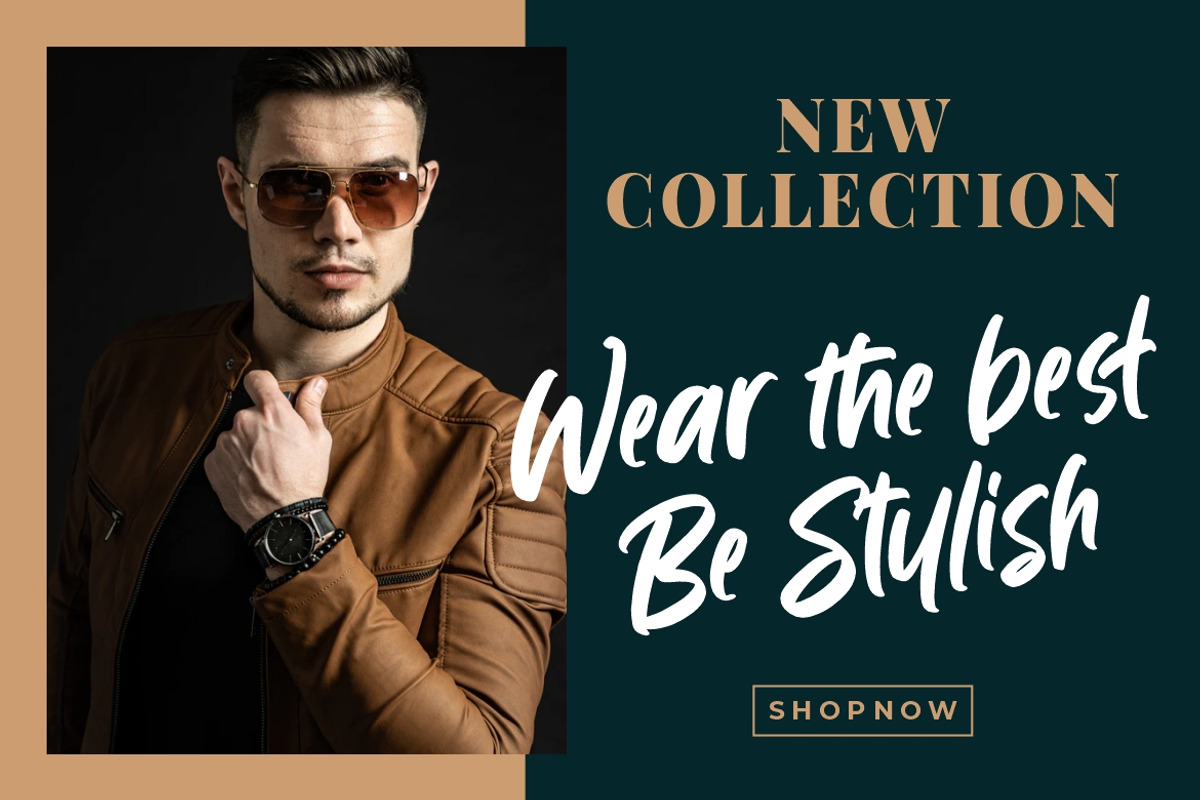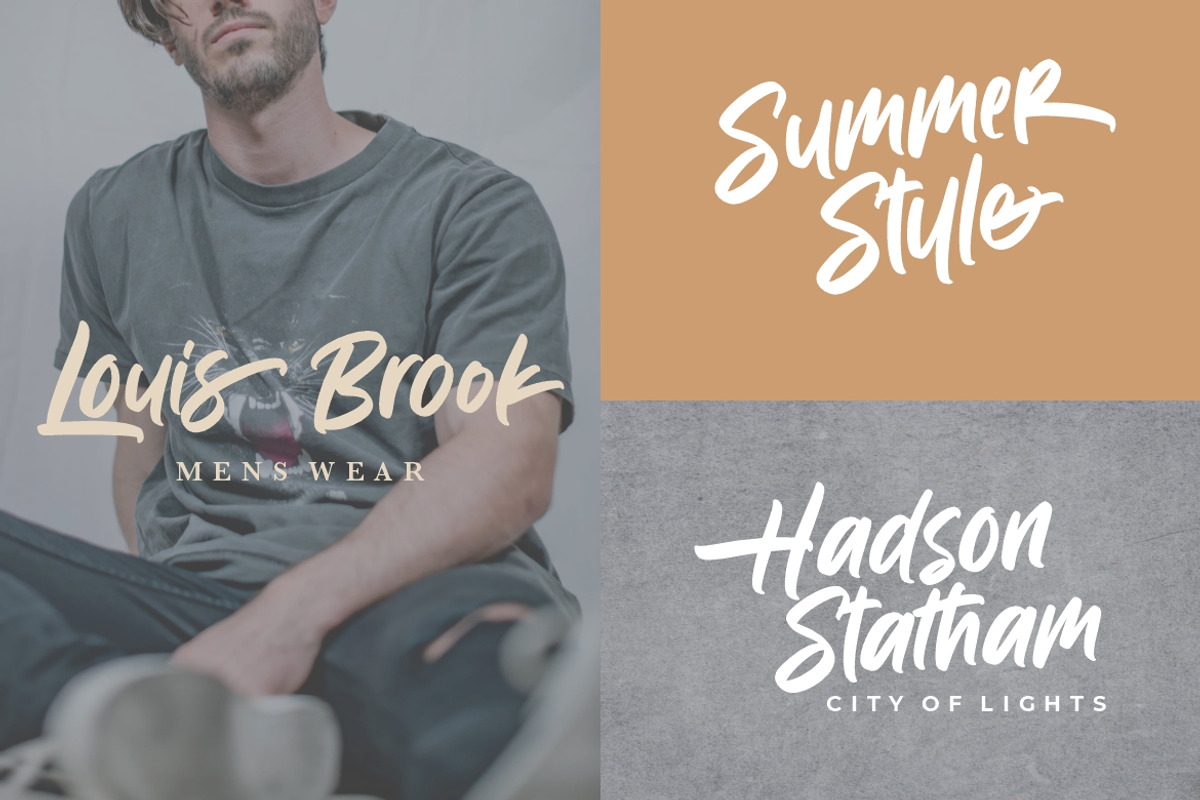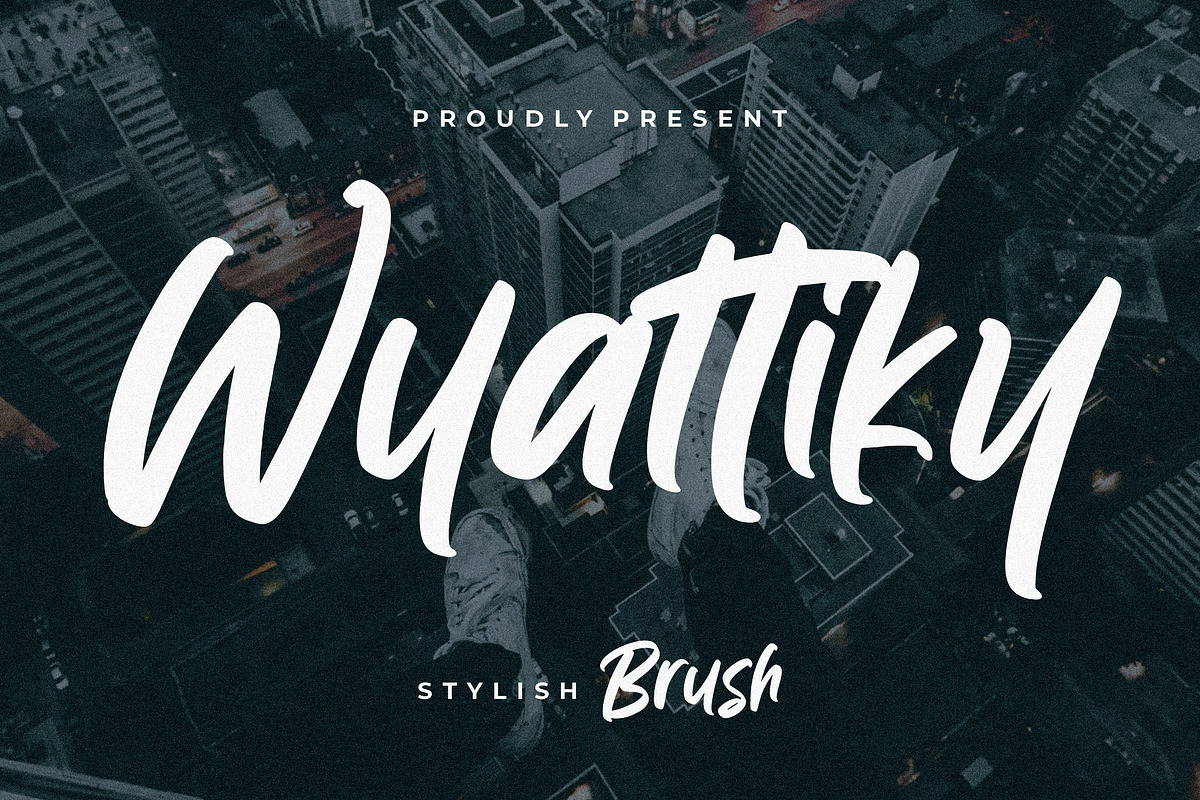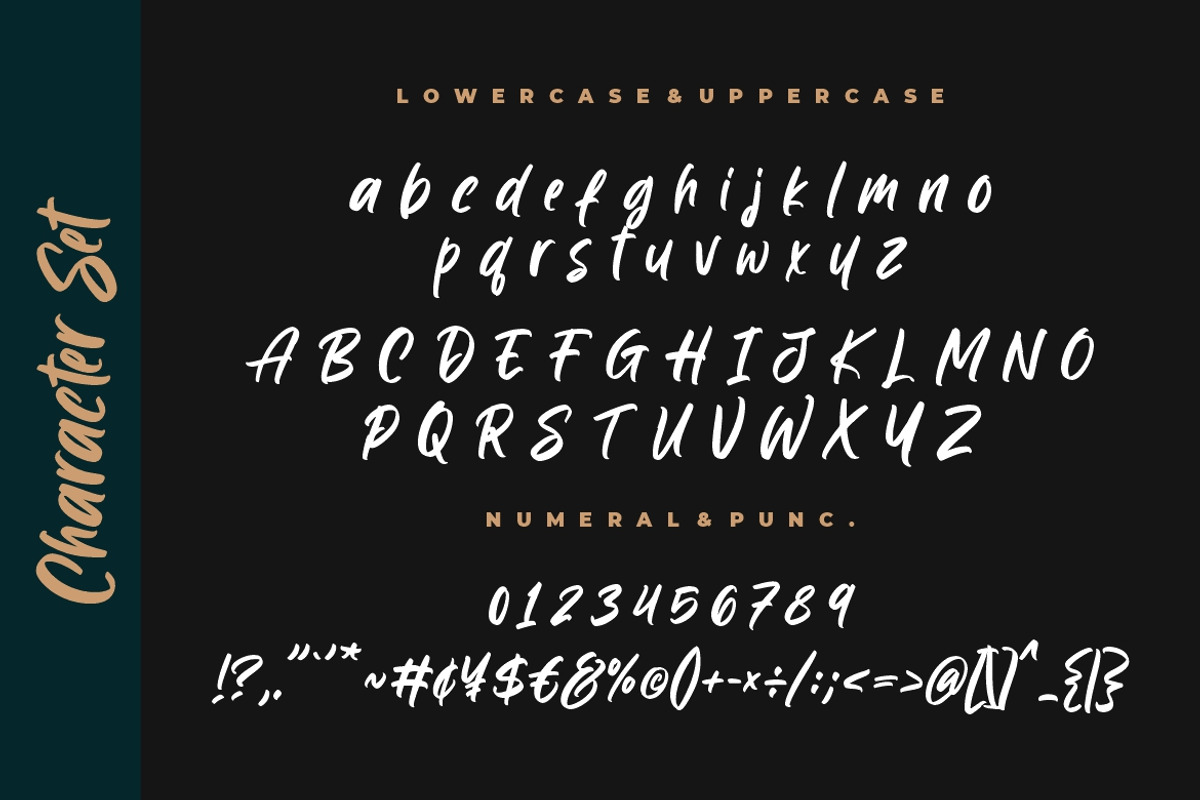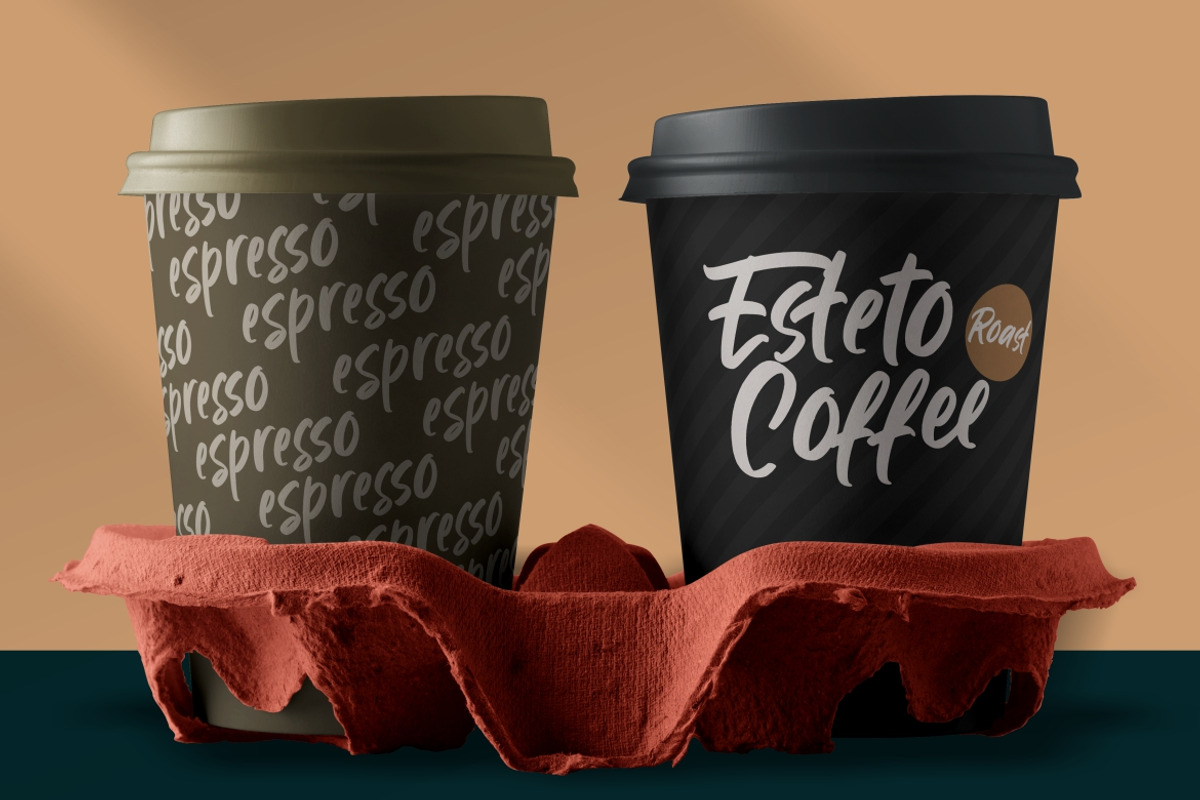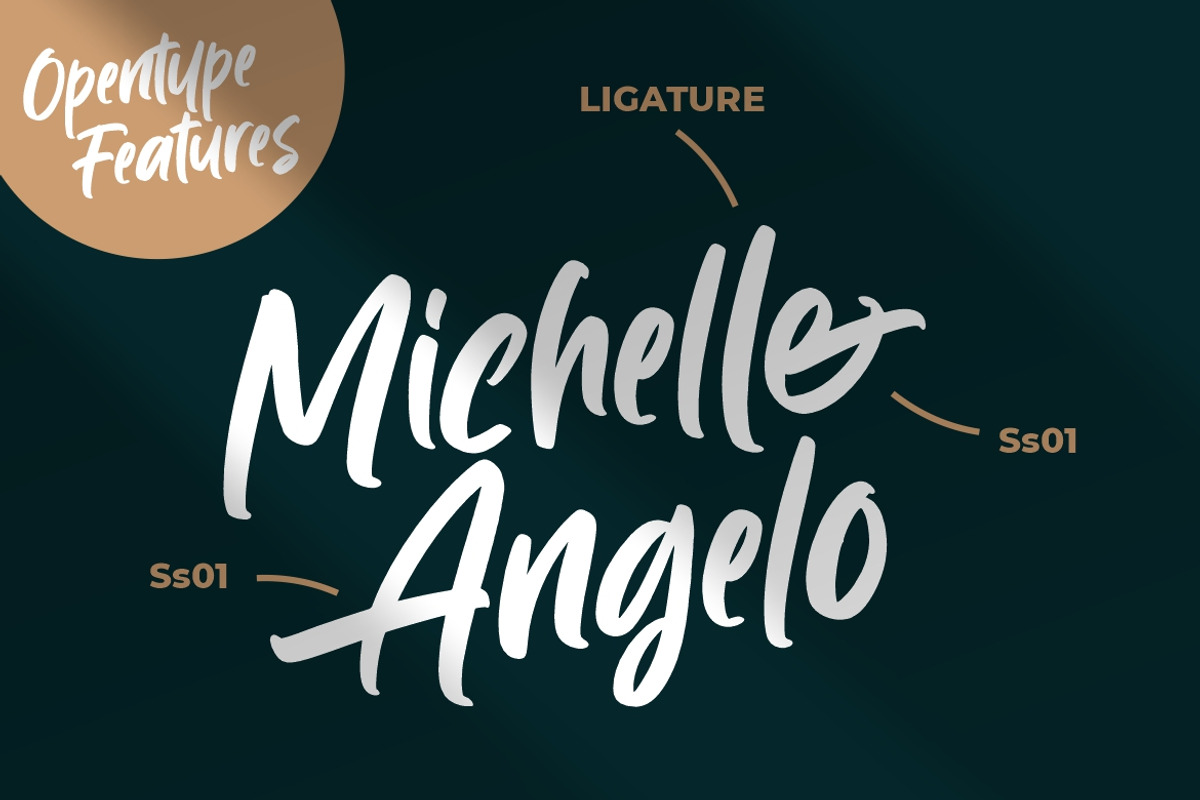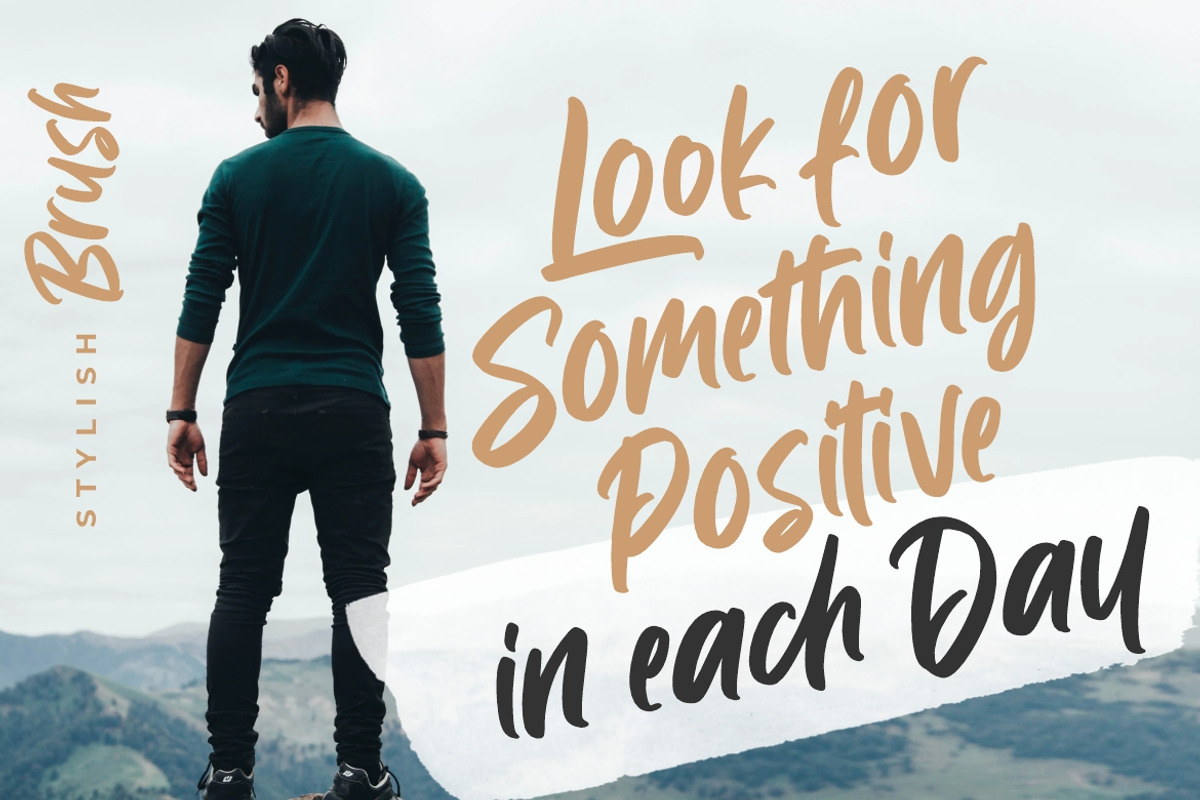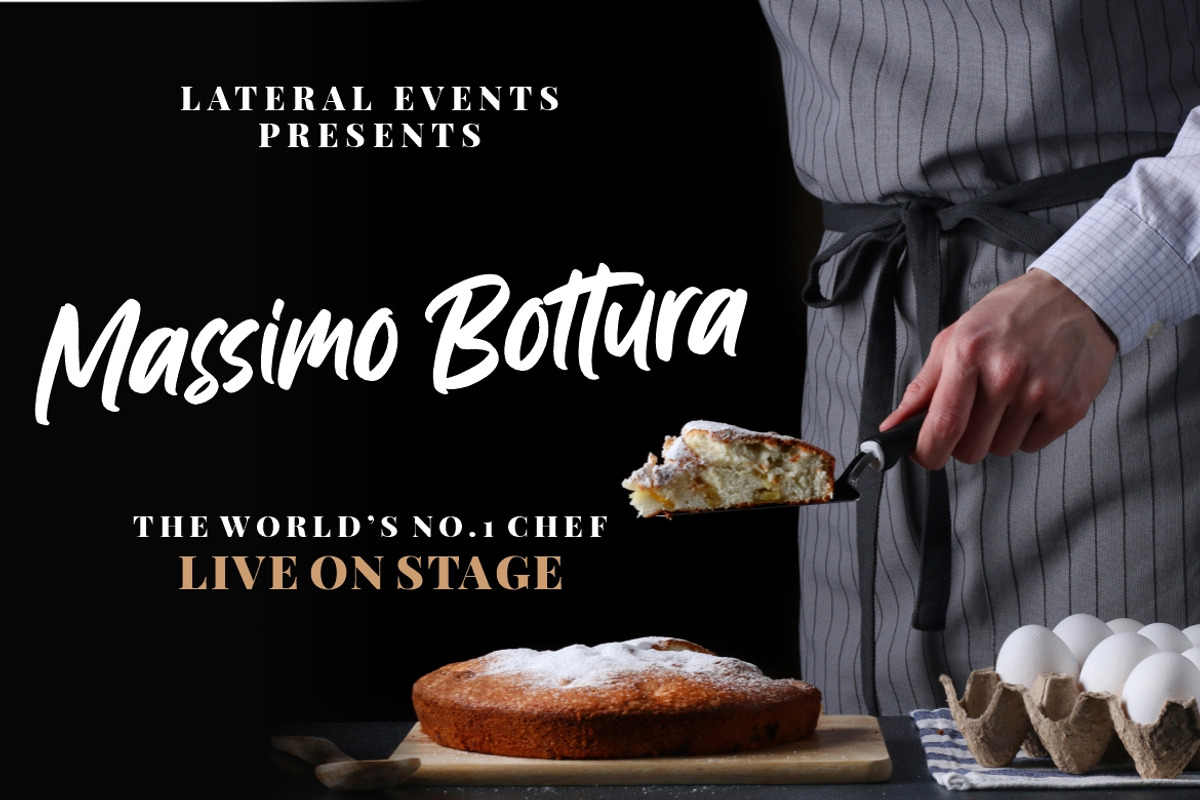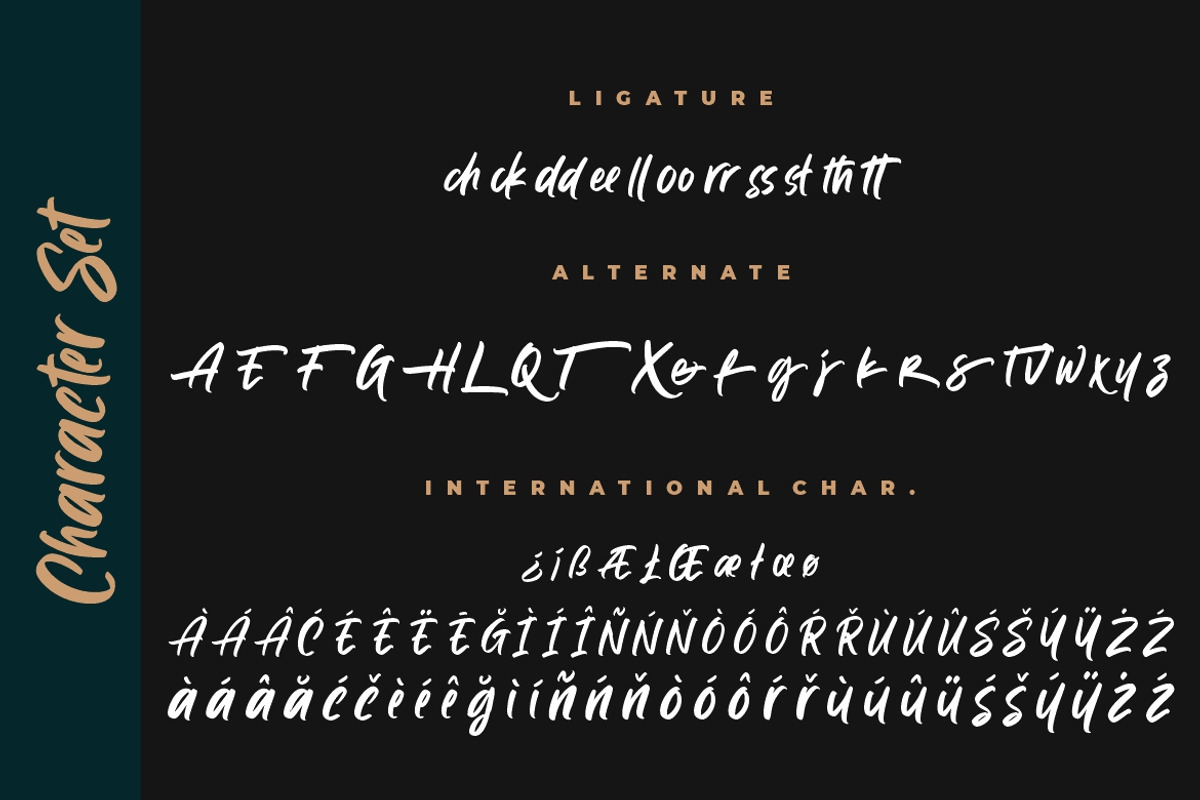
Wyattiky Stylish Brush
Wyattiky is a brush font that looks stylish and modern perfect for your modern project.
Wyattiky is perfect for branding projects, logo, wedding designs, social media posts, advertisements, product packaging, product designs, label, photography, watermark, invitation, stationery and any projects that need handwriting taste.
- Ligature & Alternate